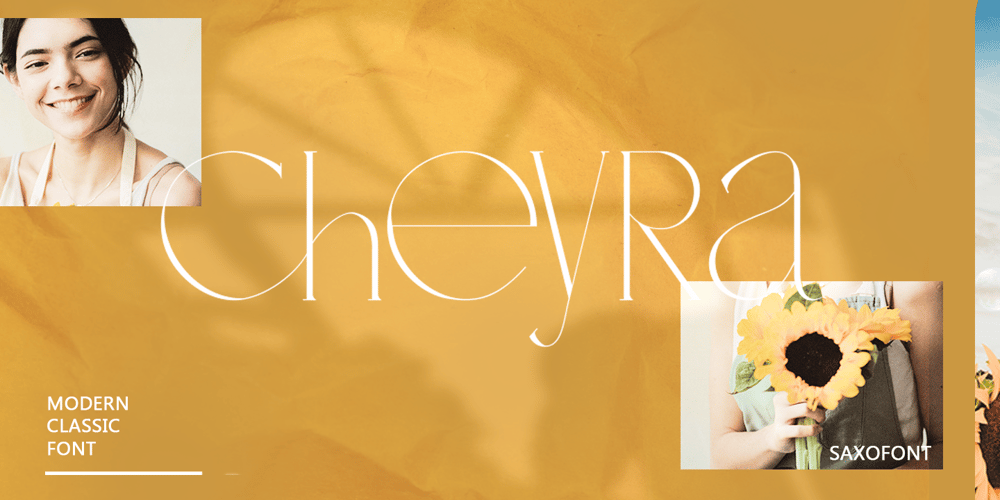
Cheyra
Cheyra font
Cheyra Font Family was designed by Rina Kartina and published by Saxofont. Cheyra contains 1 styles and family package options. Cheyra is a thin and modern sans serif font. Cheyra combines uppercase and lowercase styles. Use it for any design projects that require a charming appearance.